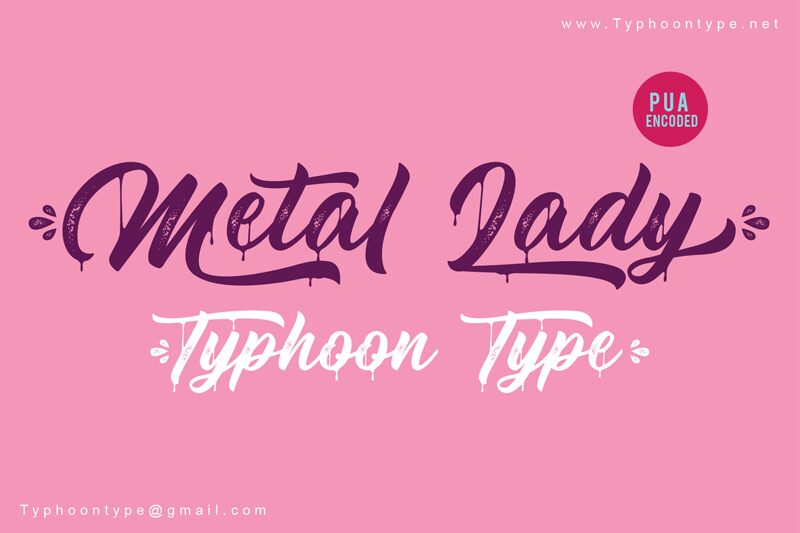
Metal Lady font is a stunning script typeface designed by Typhoon Type - Suthi Srisopha.
Type ( before word to get beginning splash and Type ) after word to get the ending splash.
Example : (Metal Lady)